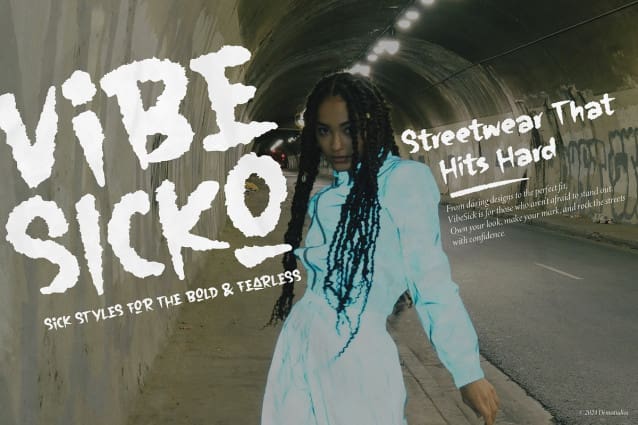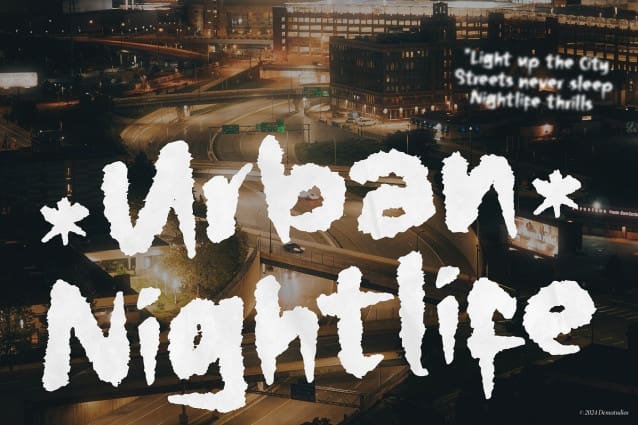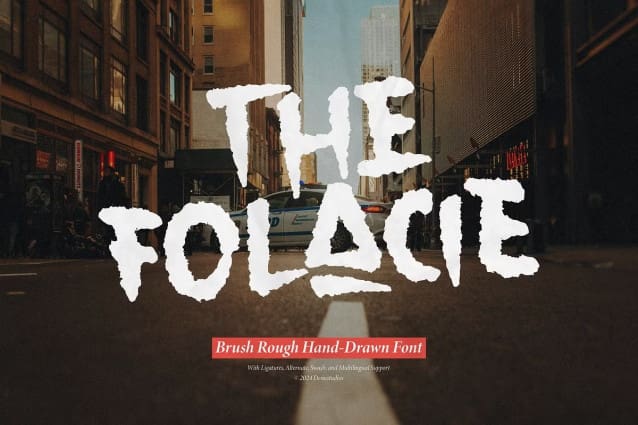
The Folacie Font
The Folacie Font | Rough Hand Drawn Font, from Denustudios, suitable for any projects such as: logos, branding projects, homeware designs, product packaging, mugs, quotes, posters, shopping bags, t-shirts, book covers, name card, invitation cards, greeting cards, label, photography, watermark, special events, and all your other lovely projects that need a Rough Hand Drawn Font taste.